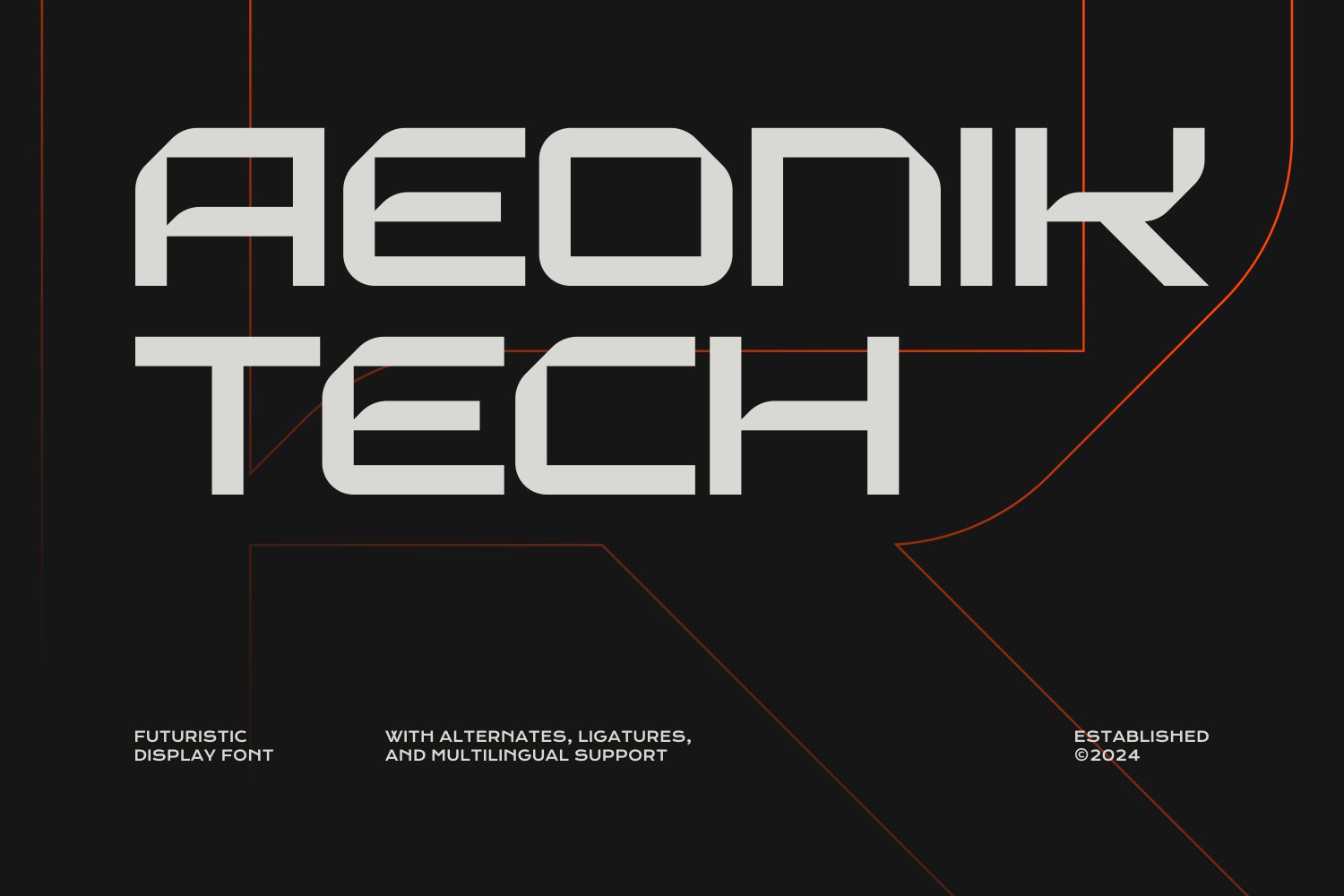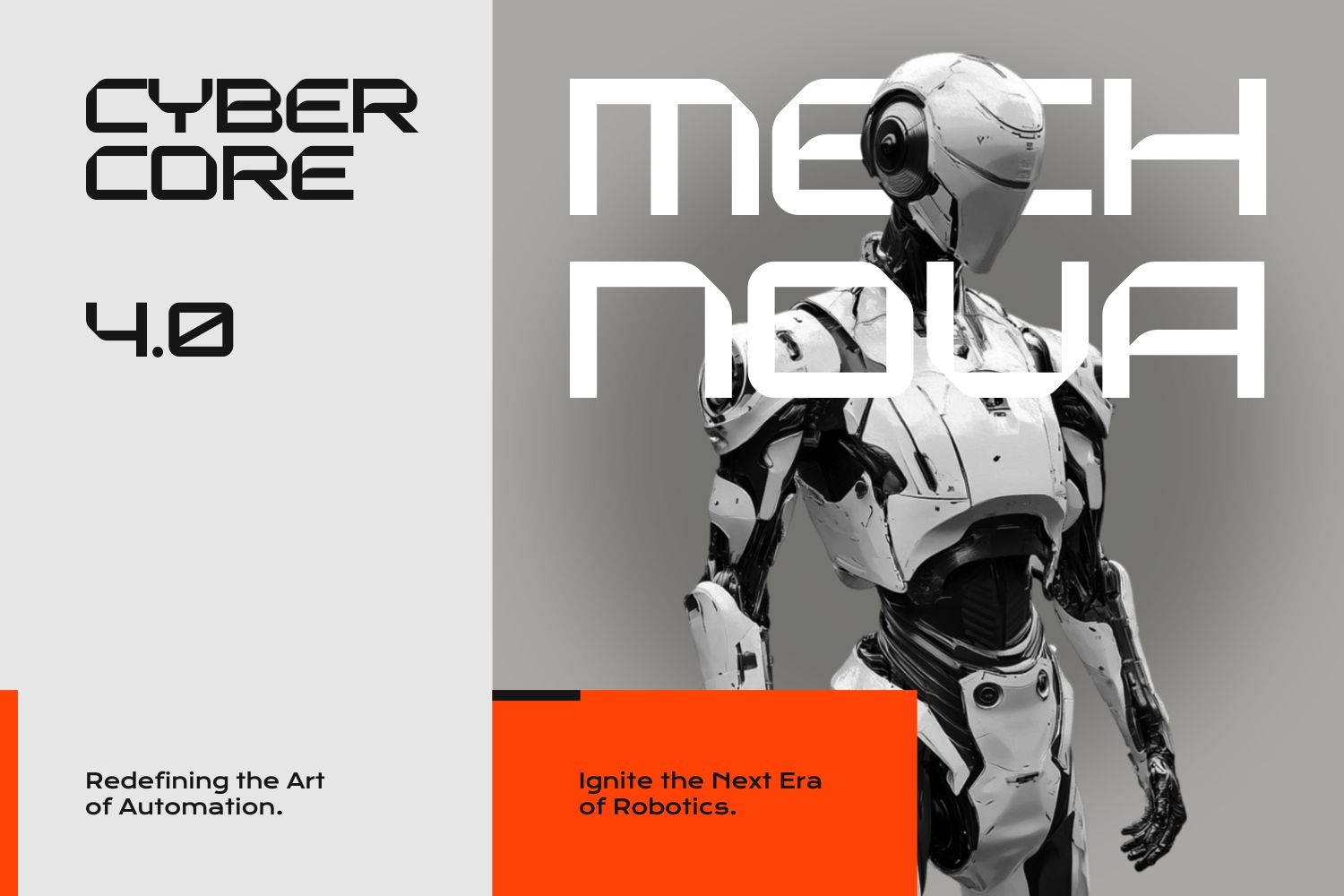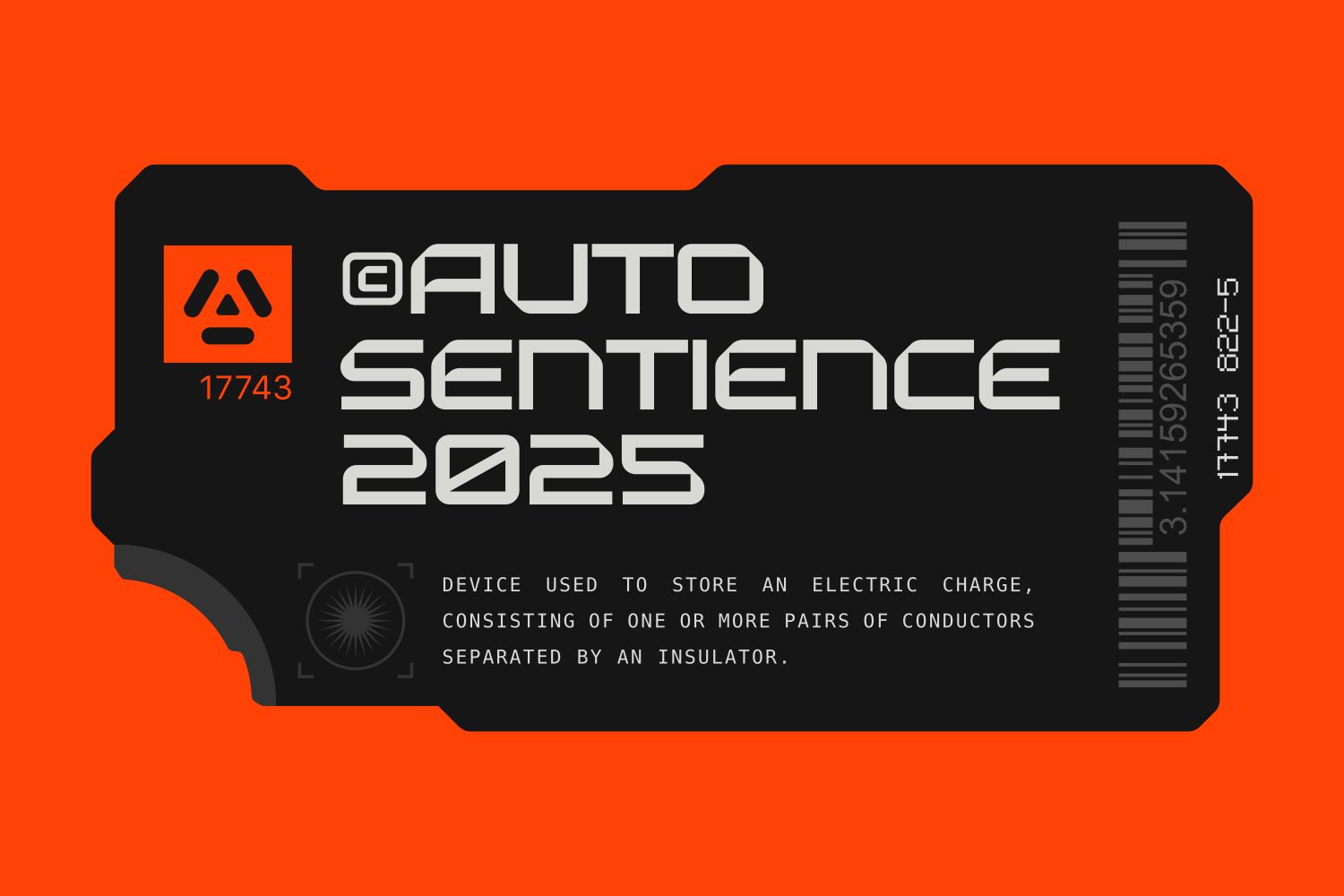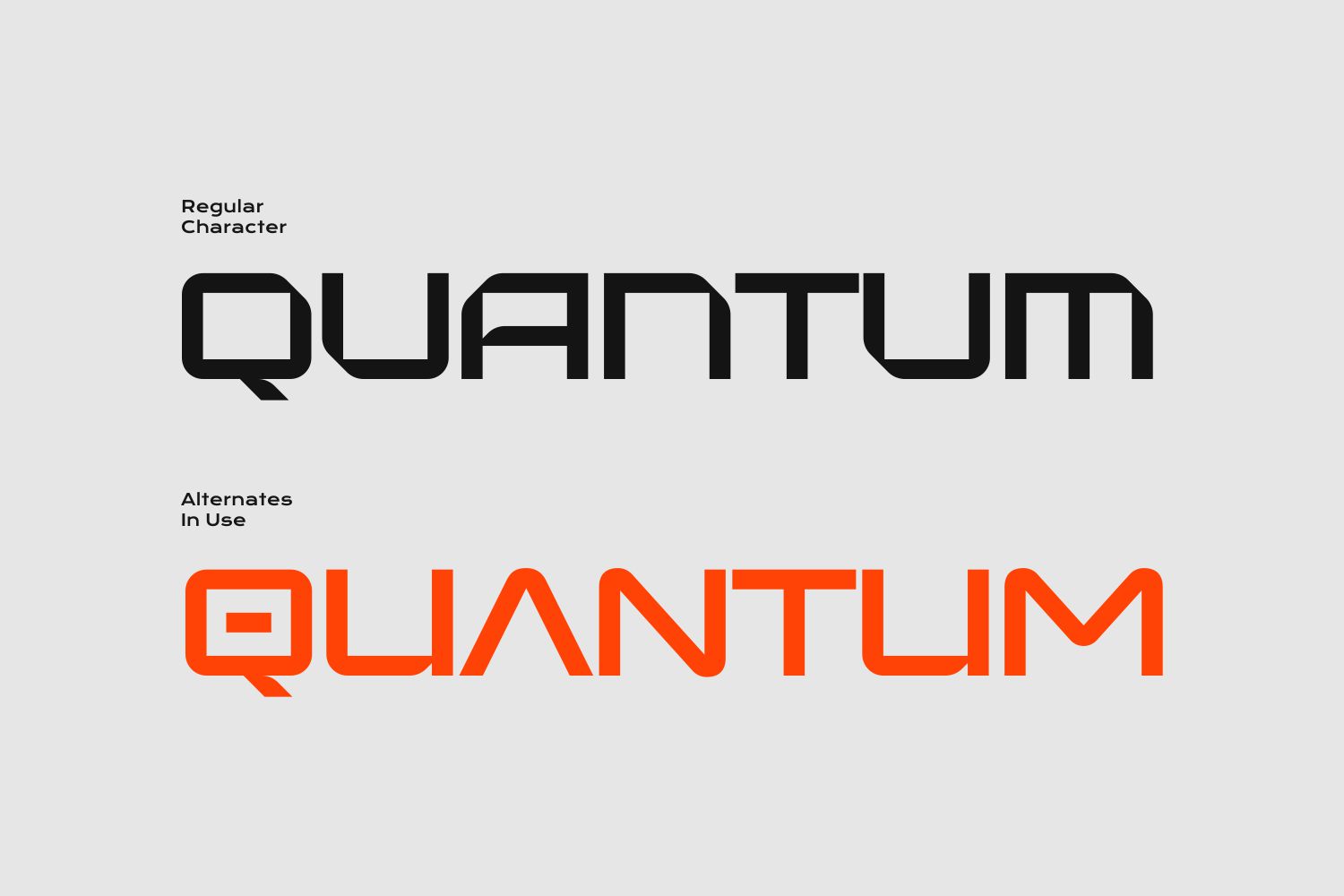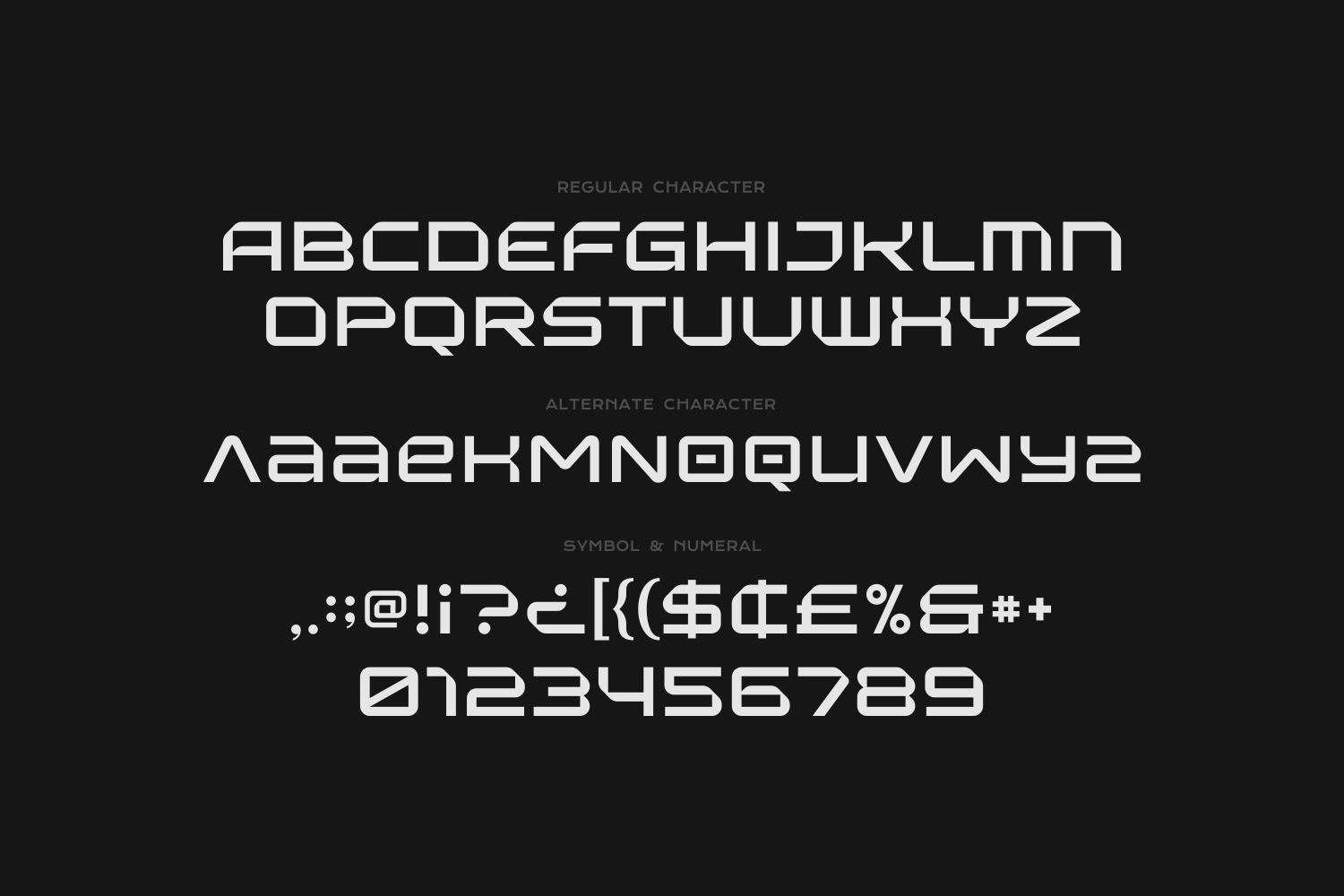
Aeonik Tech is a futuristic display font designed with a sleek, modular structure that embodies the aesthetics of advanced technology and cybernetic innovation. Its geometric forms and sharply refined terminals deliver a powerful, high-tech appearance perfect for sci-fi titles, digital interfaces, robotics, and tech branding. With both regular and alternate characters, Aeonik Tech gives designers the flexibility to create dynamic, forward-thinking visuals.
Equipped with ligatures, multilingual support, symbols, and numerals, Aeonik Tech is more than just a display font, it’s a complete solution for any design that wants to feel ahead of its time. Whether you’re building a cyberpunk UI, AI interface, or branding for future-tech startups, Aeonik Tech ensures your typography looks bold, modern, and engineered for the next era.
Aeonik Tech